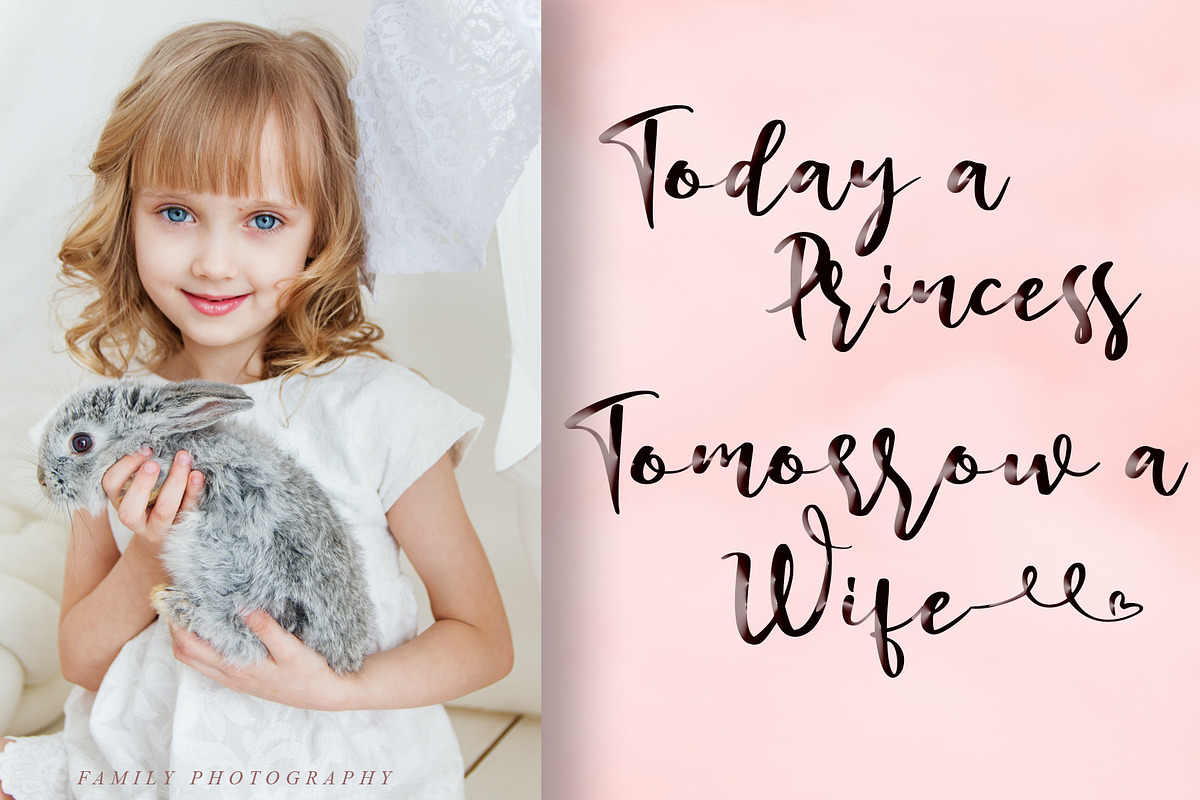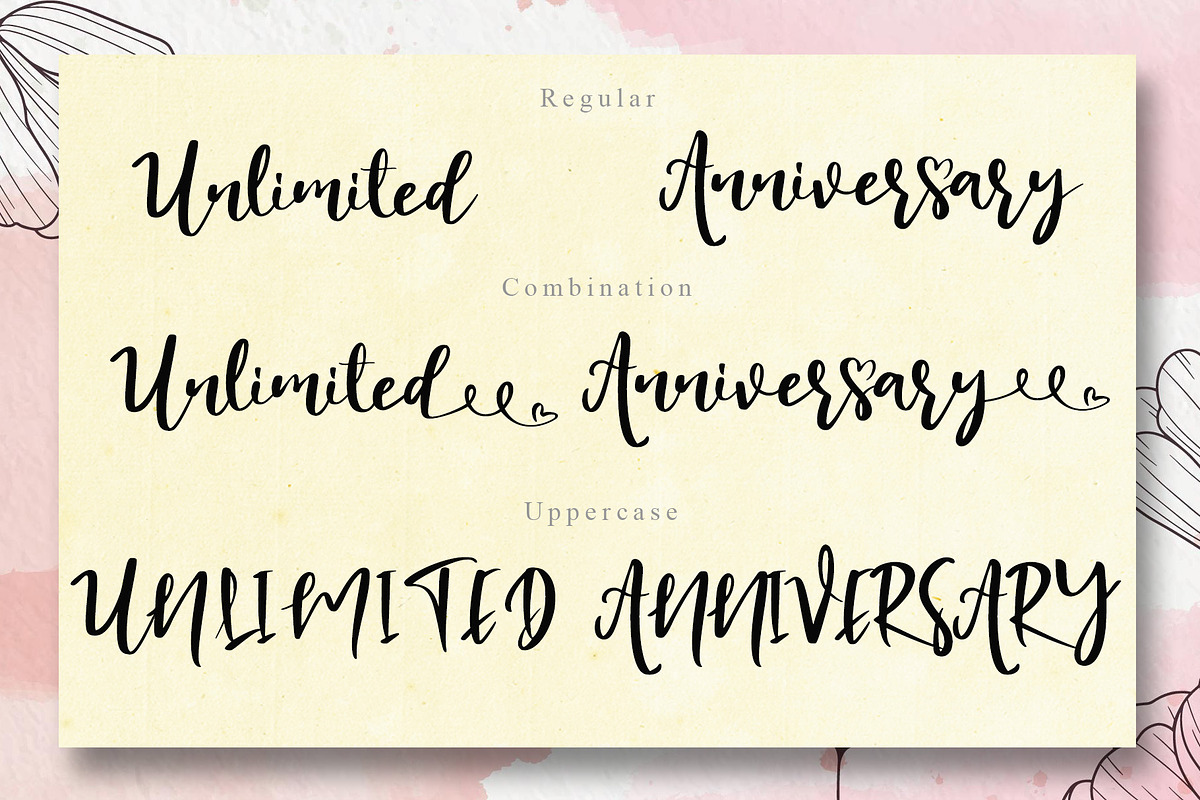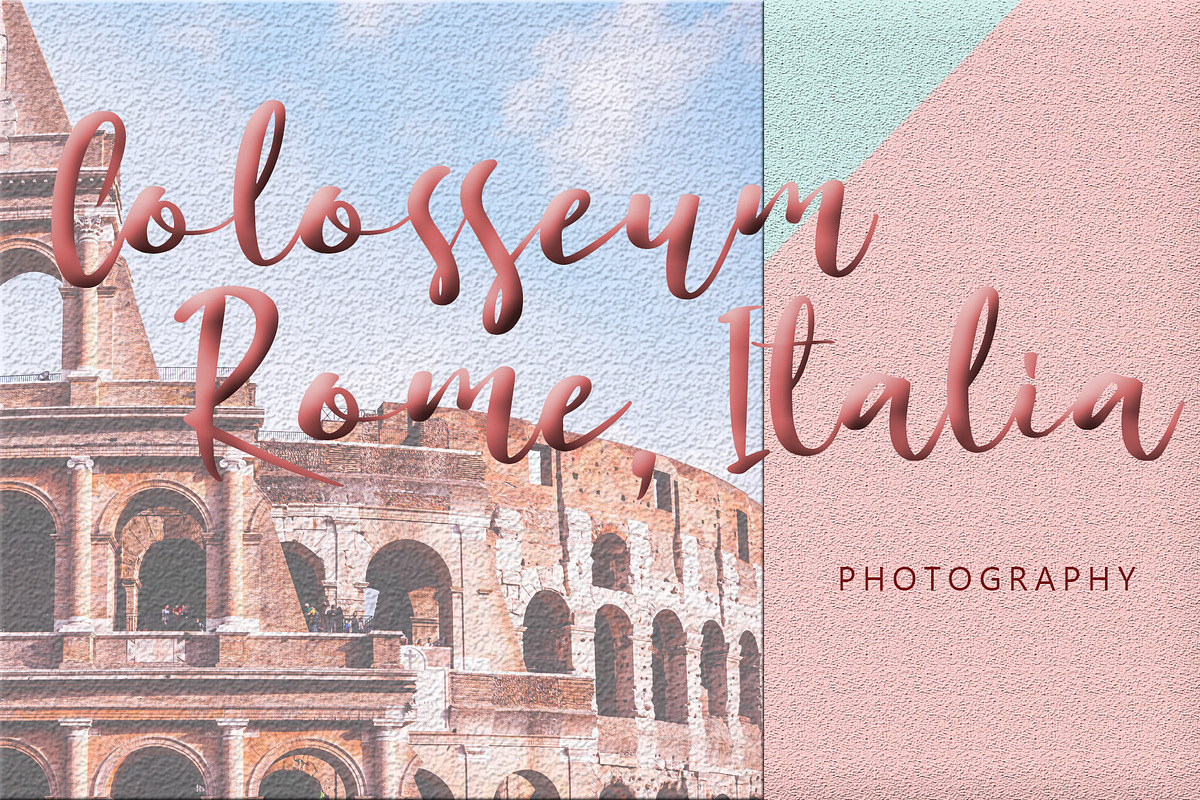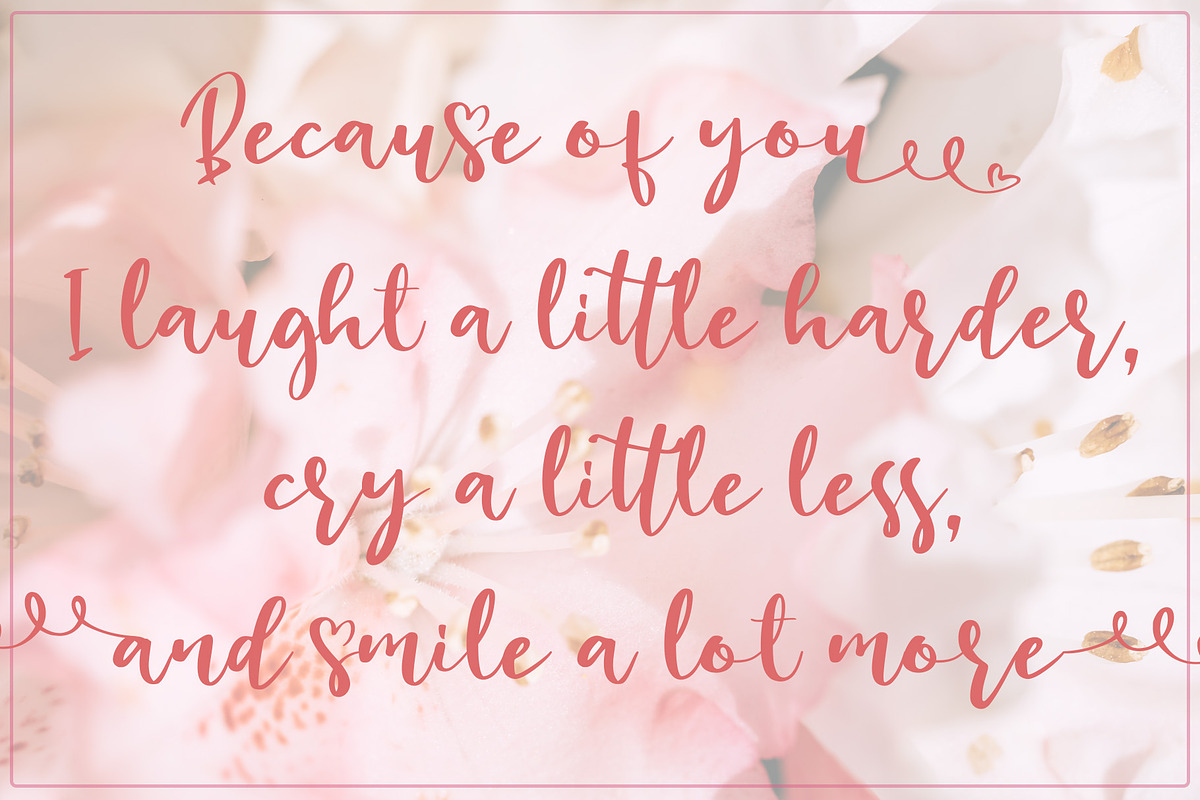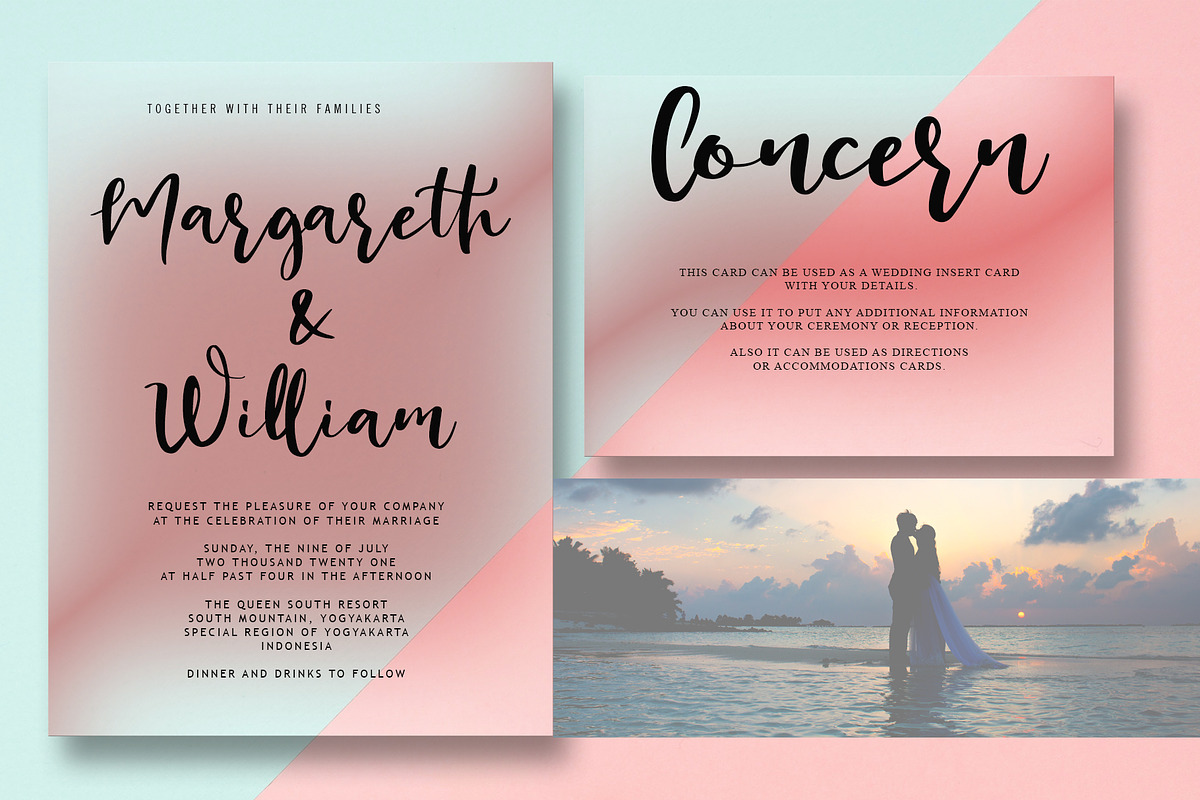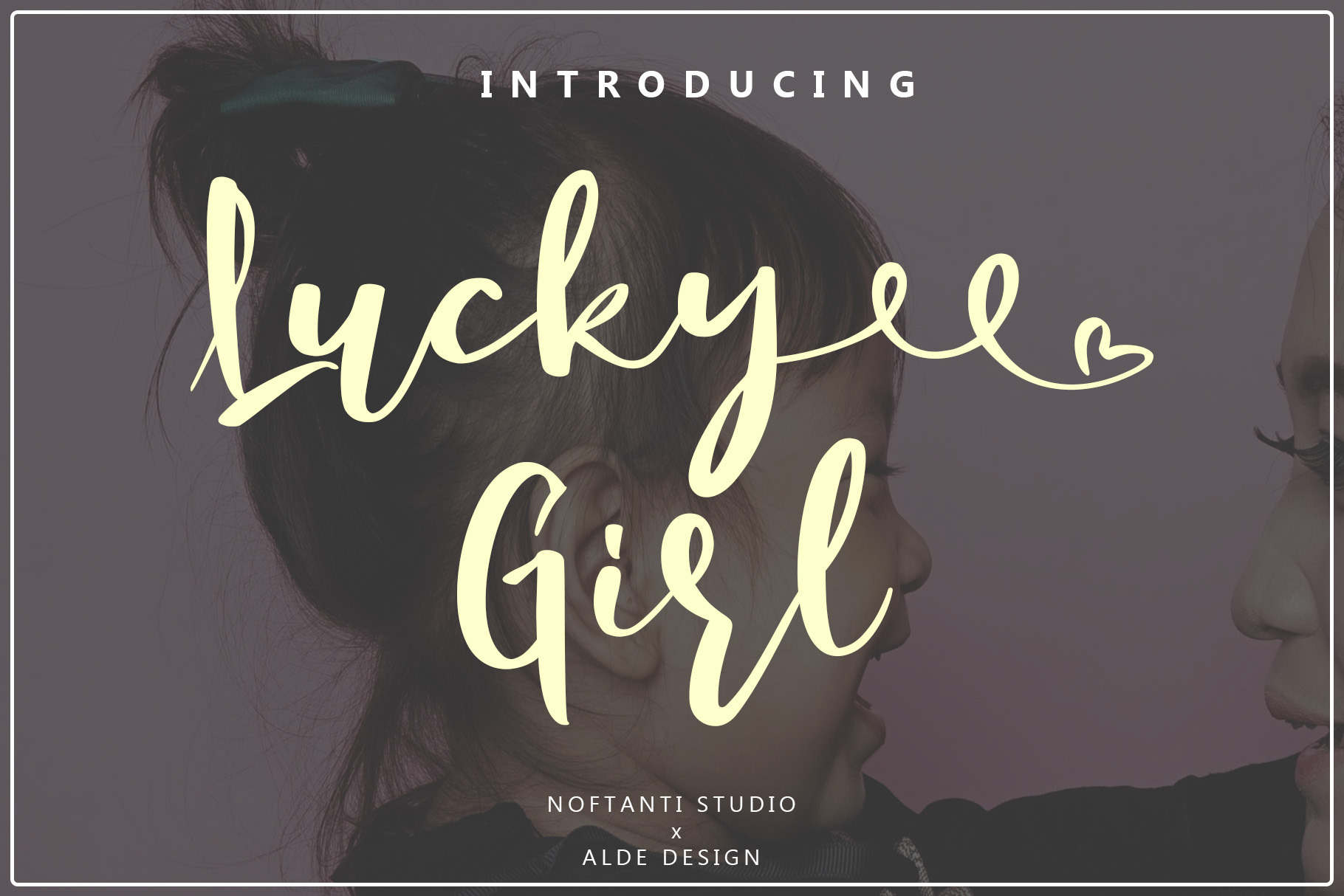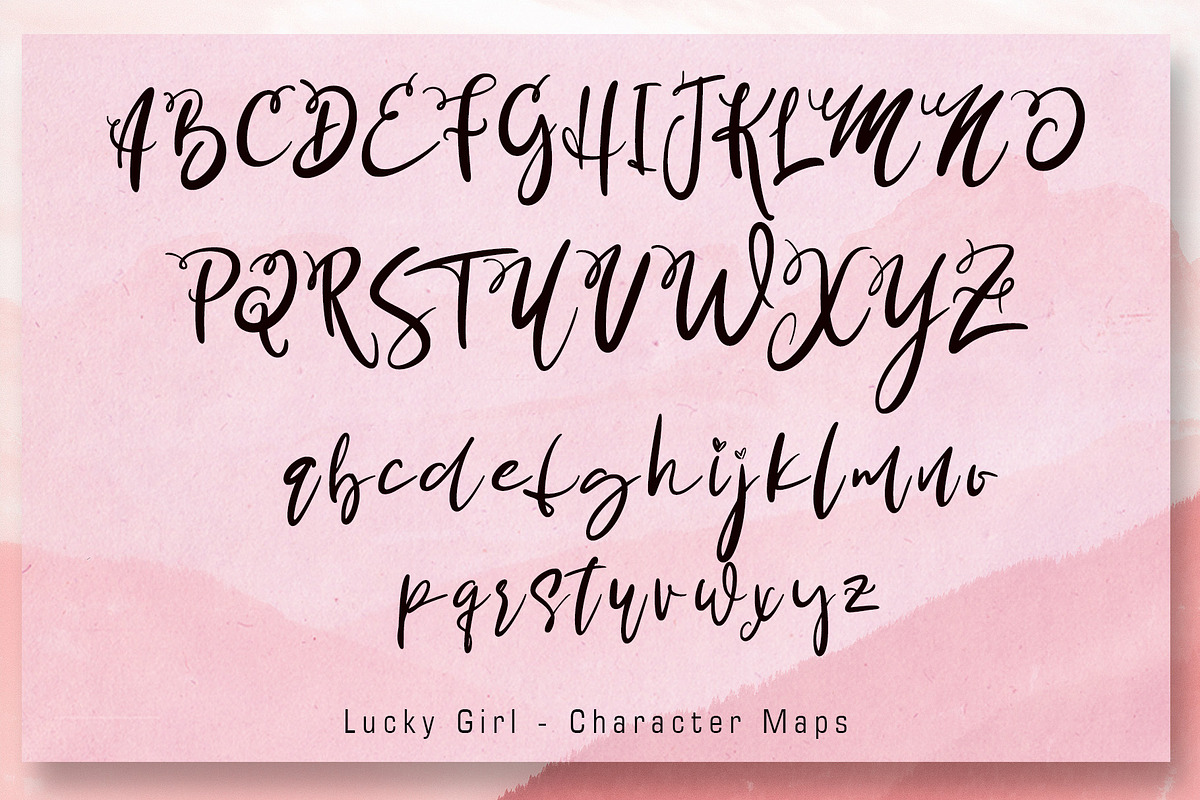
Lucky Girl Cutes Script Font
Alde Design x Noftanti Studio
Lucky Girl Cutes Script Font
Lucky Girl results out of a stunning pairing of a brush pen and pencil that makes it look incredibly endearing and authentic. Use this gorgeous and unique handwritten font to bring any DIY project to life!
Each Font Has:
- Stylish modern handwritten script
- Beautiful Swash (Ending tail)
- Beautiful Titling (Beginning tail)
- Special Ligatures